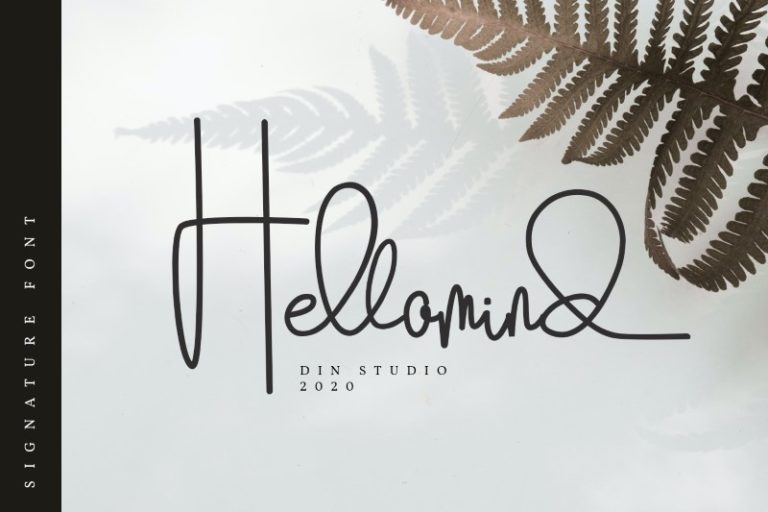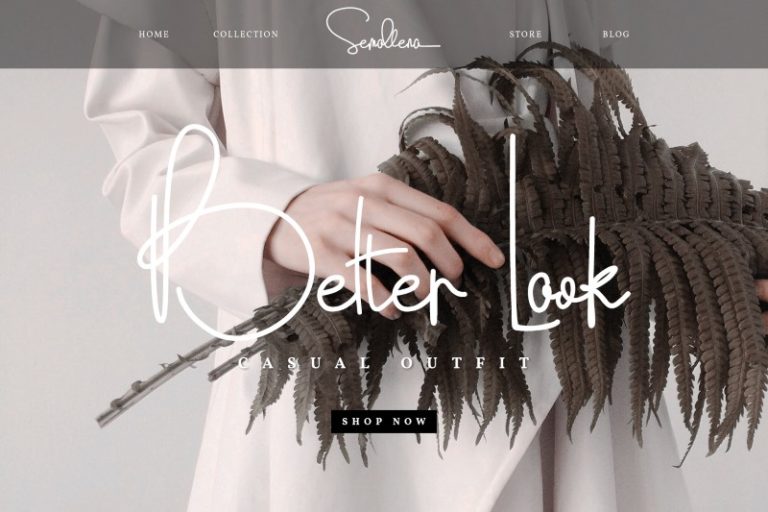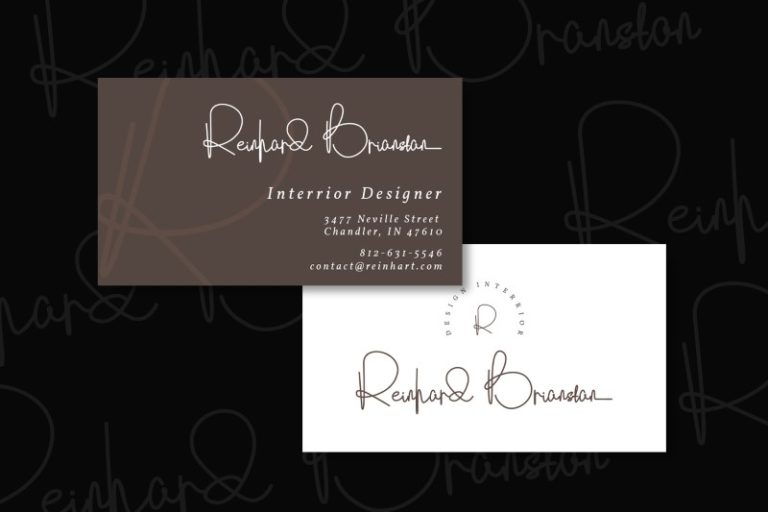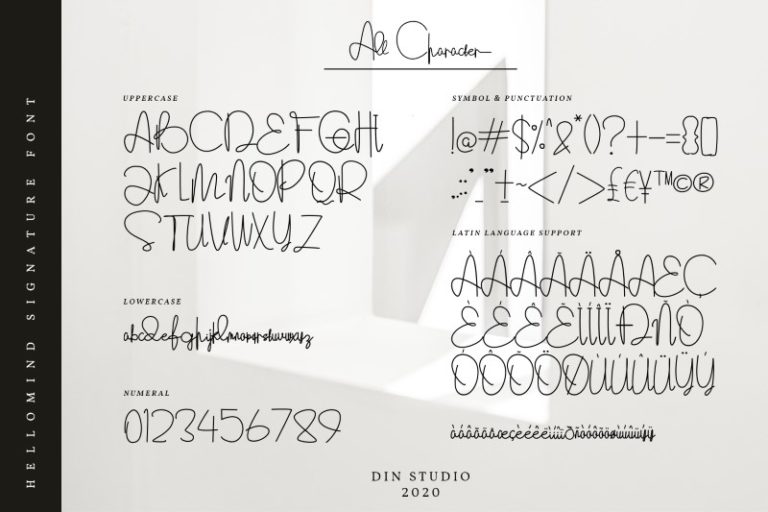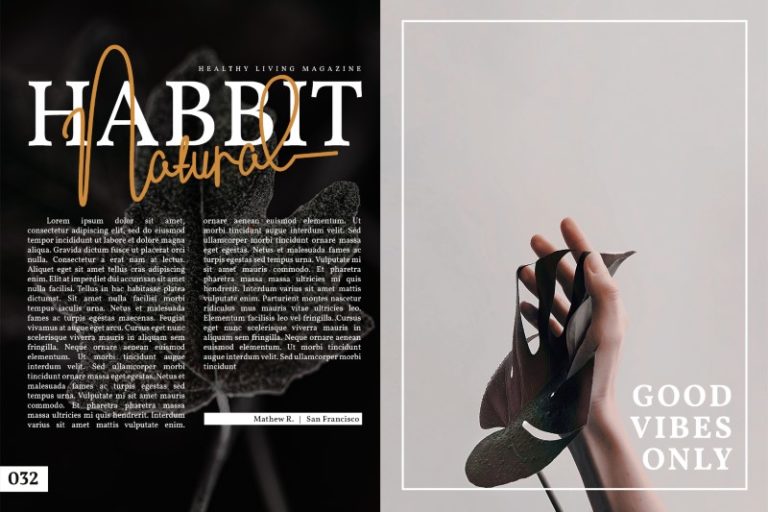
Hellomind – Monoline Signature Font
Hello, Everyone! Introducing Hellomind – Beautiful Signature Font
Hellomind is a beautiful signature font. It brings a modern and attractive typeface. Made for any professional project branding. It is the best for logos, branding, wedding and quotes. See the previews above to get some inspiration on how you can use them. Happy Designing!
– Stylistic Set
– Beautiful Ligatures
– Multilingual Support
– Numerals and Punctuation
This Font Support Language:
Afrikaans, Albanian, Asu, Basque, Bemba, Bena, Breton, Catalan, Chiga, Cornish, Danish, Dutch, English, Faroese, Filipino, Friulian, Galician, German, Gusii, Indonesian, Irish, Italian, Kabuverdianu, Kalenjin, Kinyarwanda, Luo, Luxembourgish, Luyia, Machame, Makhuwa-Meetto, Makonde, Malagasy, Manx, Morisyen, North Ndebele, Norwegian Bokmål, Norwegian Nynorsk, Nyankole, Oromo, Portuguese, Quechua, Romansh, Rombo, Rundi, Rwa, Samburu, Sango, Sangu, Scottish Gaelic, Sena, Shambala, Shona, Soga, Somali, Spanish, Swahili, Swedish, Swiss German, Taita, Teso, Uzbek (Latin), Vunjo, Zulu